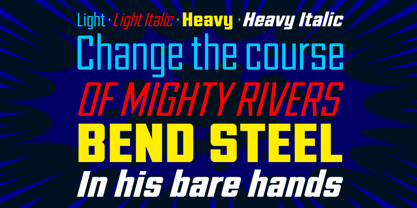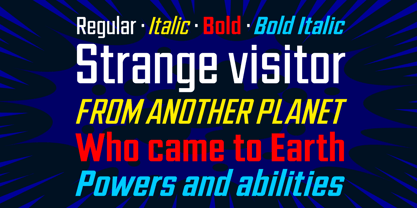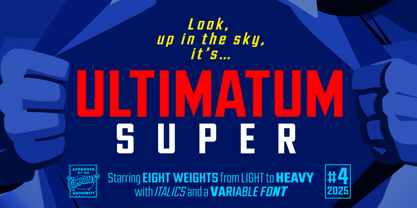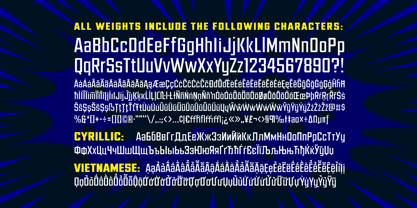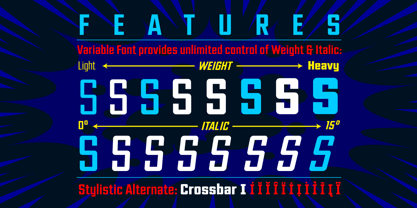
Ultimatum Super
by Comicraft
The Ultimatum Super Font Family was designed by John Roshell and published by Comicraft. Ultimatum Super contains 9 styles and family package options.
This is not our Final Warning, nor is it our Final Final Warning! This is the ULTIMATE ULTIMATUM, one worthy of the ULTIMATE SUPERHERO!
An ultra human who can bend steel in his bare hands and jump over buildings in a single bound doesn’t issue veiled threats or accept a white flag. The Ultimate Superhero requires ultimate control over the weight, width and italics. They need a variable font to match their variable speeds which can exceed that of a very very fast bullet.
Ladies and Gentlemen, we give you ULTIMATUM SUPER! You’ll believe a Font can Fly!
Completists take note: ULTIMATUM SUPER has horizontal & vertical end strokes while the original ULTIMATUM has angled end strokes.